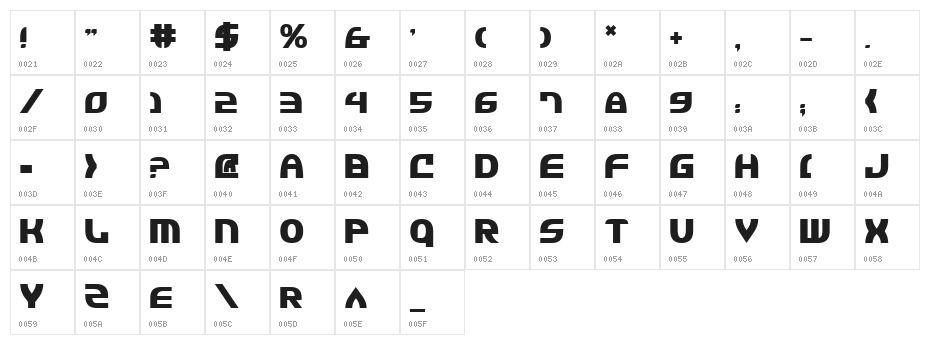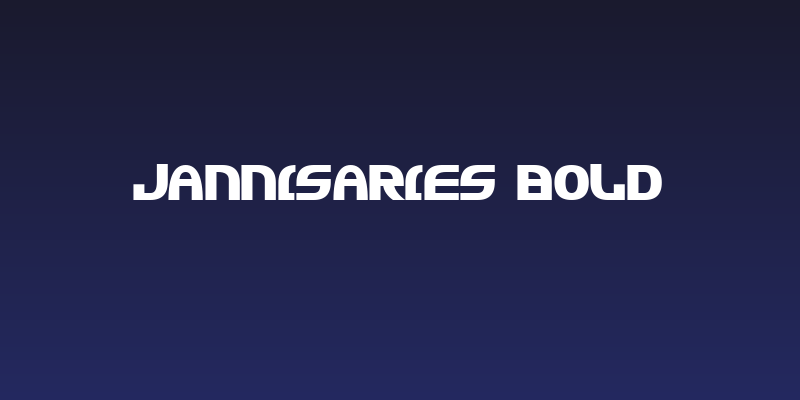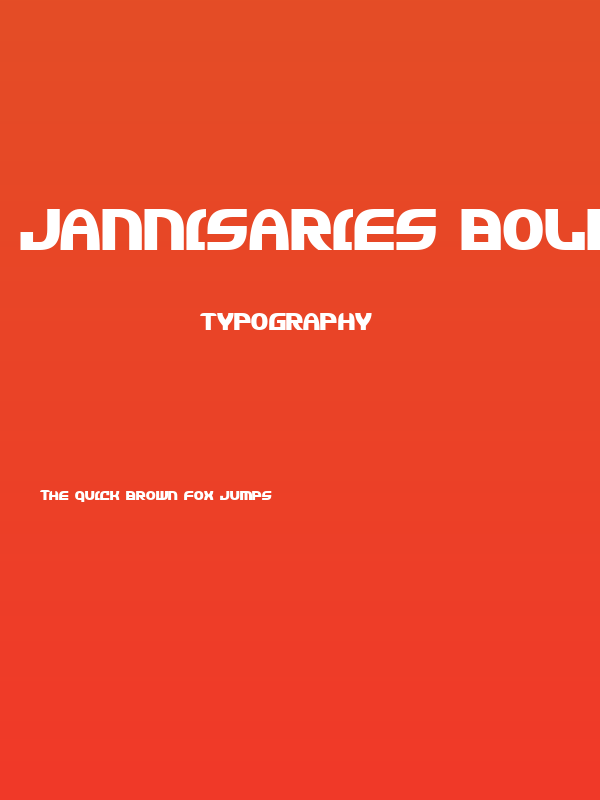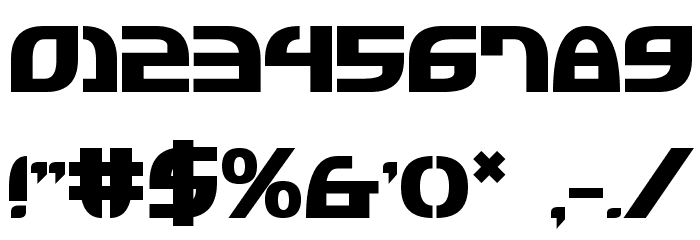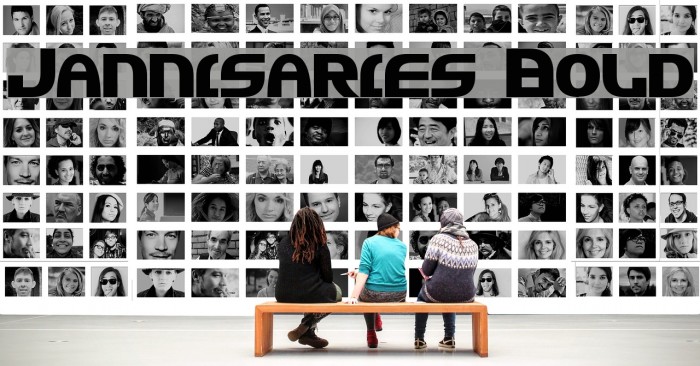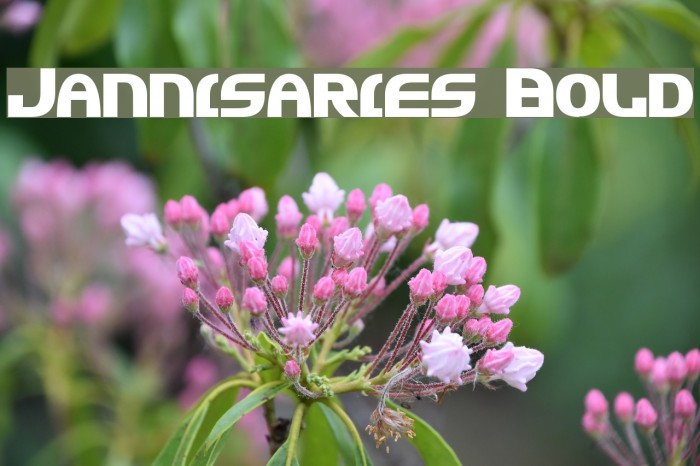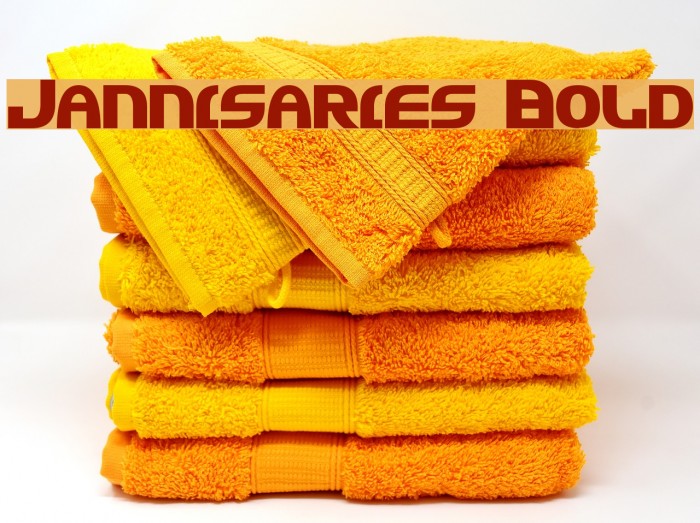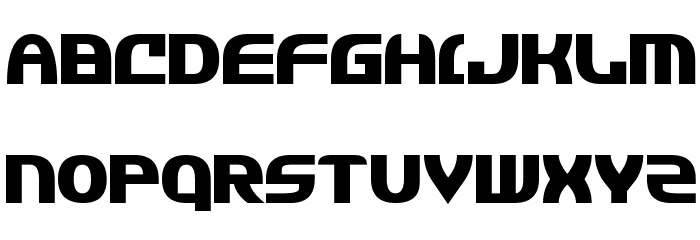
Jannisaries Bold Font
Jannisaries Bold Description
This font features a bold and striking design with a futuristic and geometric aesthetic. The characters are crafted with a strong emphasis on angular shapes and sharp edges, giving it a modern and dynamic appearance. The uppercase letters are particularly distinctive, with unique cutouts and curves that add to its visual interest. The numbers and special characters maintain this bold style, ensuring consistency throughout. The font's overall look is both powerful and stylish, making it suitable for projects that require a strong visual impact.
| Proposed Projects | Ideal for branding, posters, headlines, and any design project that requires a modern and impactful typeface. |